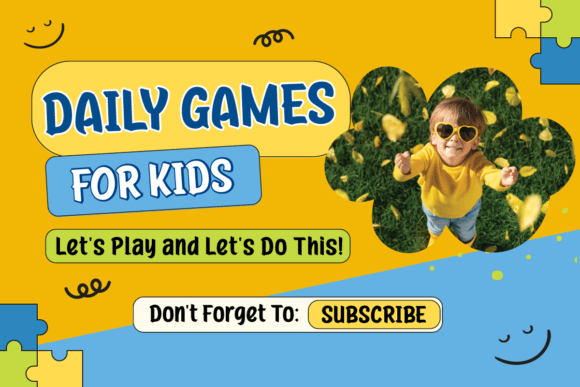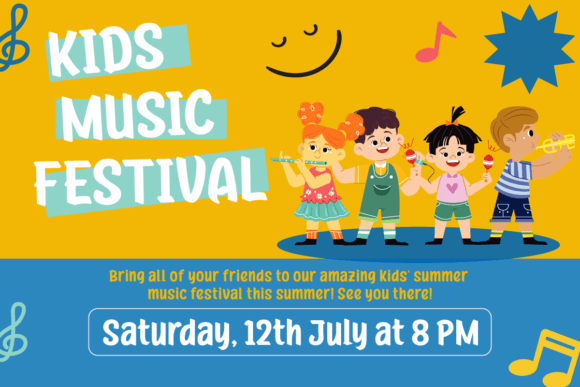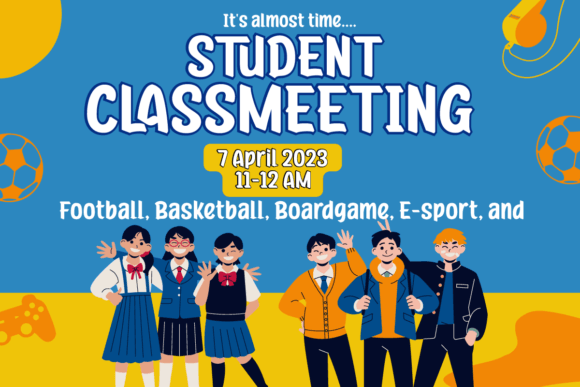
Unleash Your Creativity with Jatukiy Font
Have you ever stared at a blank canvas, unsure of how to bring your creative vision to life? The blank page can be intimidating, but what if you had a secret tool to unlock your imagination? Welcome to the world of Jatukiy Font, a high-quality design resource that’s about to become your go-to companion for creative projects. With its playful, bouncy characters, this font is the perfect addition to any design, adding a touch of humor and personality that’s sure to leave a lasting impression.
As a designer, you’re constantly on the lookout for unique and engaging design elements to elevate your work. Jatukiy Font offers a transparent background and a wide range of characters, making it easy to incorporate into your designs. Whether you’re working on a children’s book, party invitation, or any other creative project, this font is a valuable resource that will help you stand out from the crowd.
Key Features of Jatukiy Font
- High-quality design resource ideal for creative projects requiring a unique and eye-catching font.
- Comes with a transparent background, allowing for seamless integration with any design or image.
- Designed with a high level of detail and precision, resulting in a crisp and clear font at resolutions up to 300 DPI.
- Features a unique and exotic design style, making it perfect for projects requiring a distinctive and memorable look.
- Supports a wide range of languages, including Latin, making it a versatile design resource for international projects.
Honest Review: Jatukiy Font
As a designer, I’m always on the lookout for unique design resources to elevate my creative projects. The Jatukiy Font caught my attention, and I decided to give it a try.
Here’s what works well: ✨ The font has a beautiful, hand-drawn feel that adds a touch of elegance to any design. It’s perfect for creative projects that require a high-quality, yet understated look. The font is also available for free download, which is a huge plus!
However, I did encounter a few limitations: ⚠️ The font doesn’t have a transparent background, which can make it difficult to use in designs with complex backgrounds. Additionally, the font only comes in a limited number of weights, which can make it less versatile than other fonts.
Overall, I’m impressed with the Jatukiy Font. It’s a solid design resource that’s perfect for projects where a high-quality, hand-drawn feel is required. While it has some limitations, it’s definitely worth checking out – especially since it’s free!
- Perfect for creative projects that require a high-quality, yet understated look.
- Beautiful, hand-drawn feel.
Tips for Getting the Most Out of Jatukiy Font
When using the Jatukiy Font, consider the following tips: use it sparingly to create a bold statement, experiment with different font sizes and colors to add visual interest, and pair it with other high-quality design resources to create a cohesive look.
The Jatukiy Font is a versatile design resource that can be used in a variety of creative projects, including graphic design, digital art, and even web design. It’s a great choice for designers who want to add a unique touch to their projects and make them stand out.